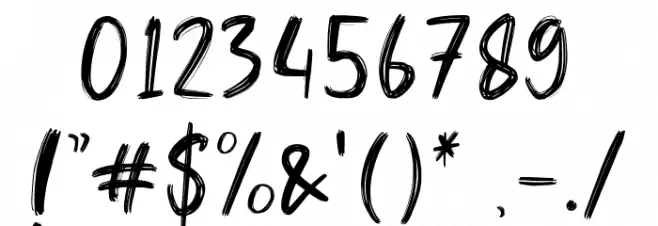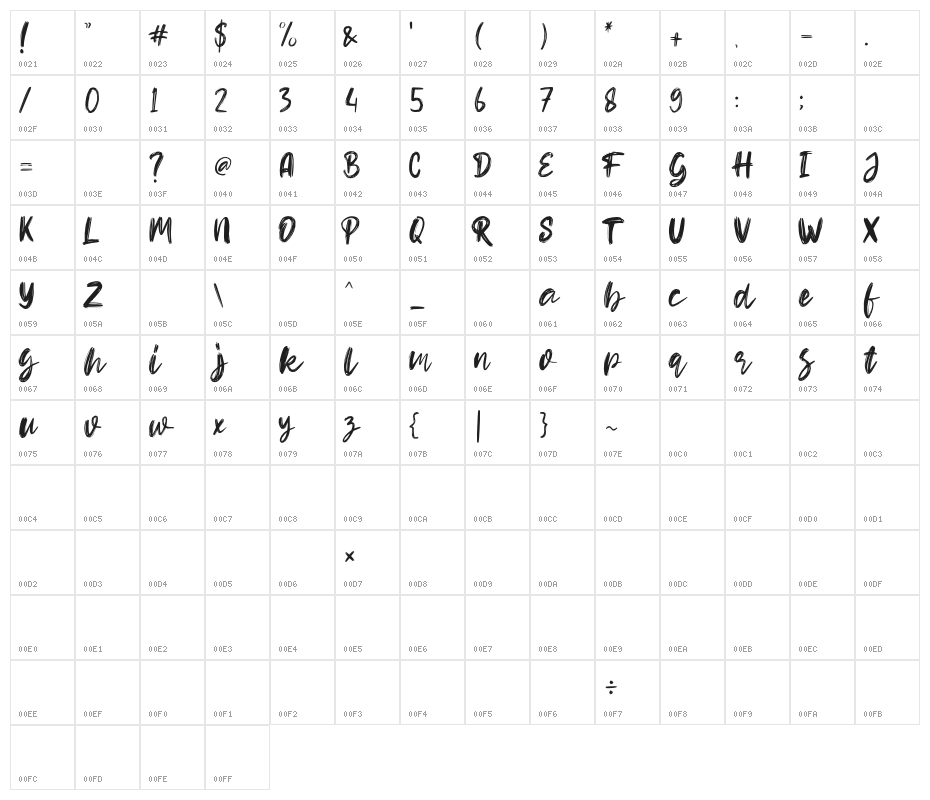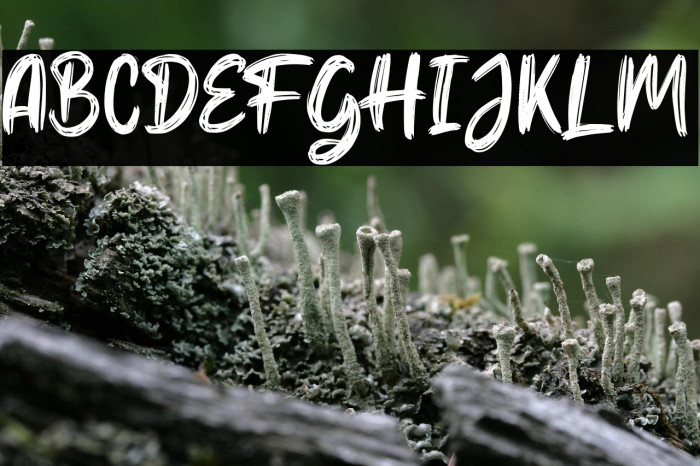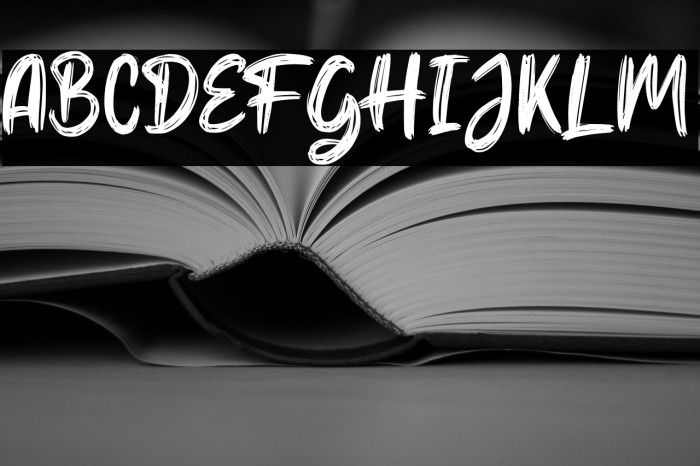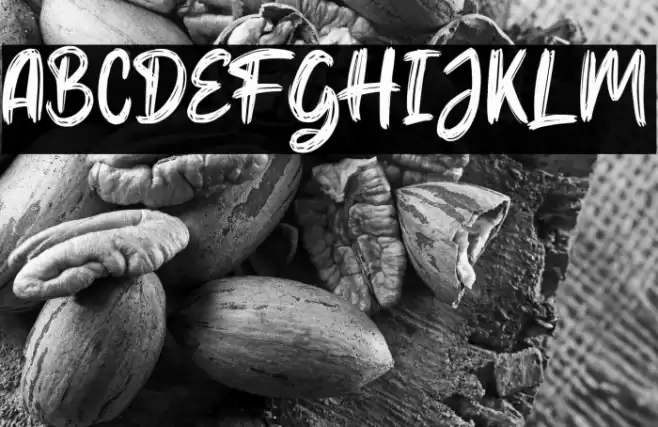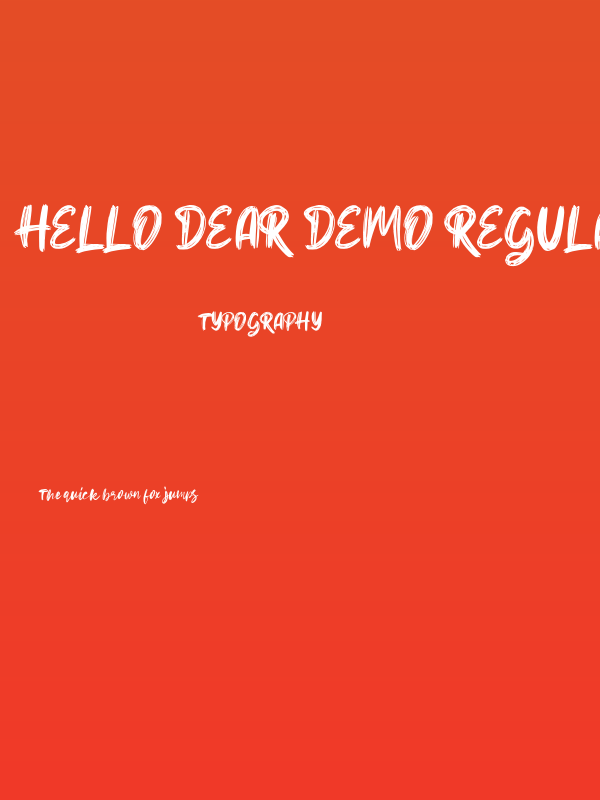
Hello Dear Demo Regular Font
Hello Dear Demo Regular Description
This font exudes a dynamic and energetic style, characterized by its bold, brush-like strokes that give it a hand-painted appearance. The uppercase and lowercase letters maintain a consistent flow, with a slightly irregular baseline that adds to its casual and artistic feel. The numbers and special characters are equally expressive, maintaining the same brushstroke aesthetic. This font is perfect for projects that require a personal touch, such as invitations, posters, or branding materials that aim to convey creativity and spontaneity.
| Use Case | Headlines, Logos, Artistic designs |
| Proposed Projects | Ideal for creative projects like invitations, posters, branding, and artistic designs. |